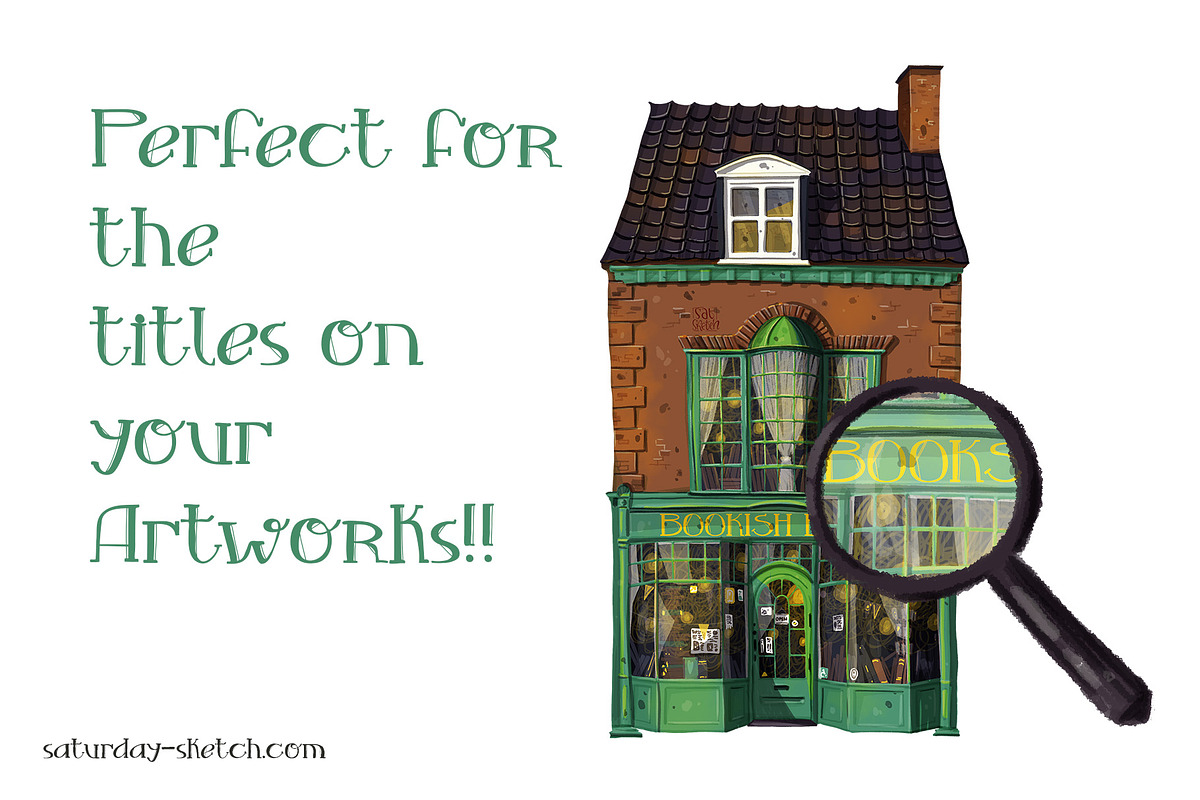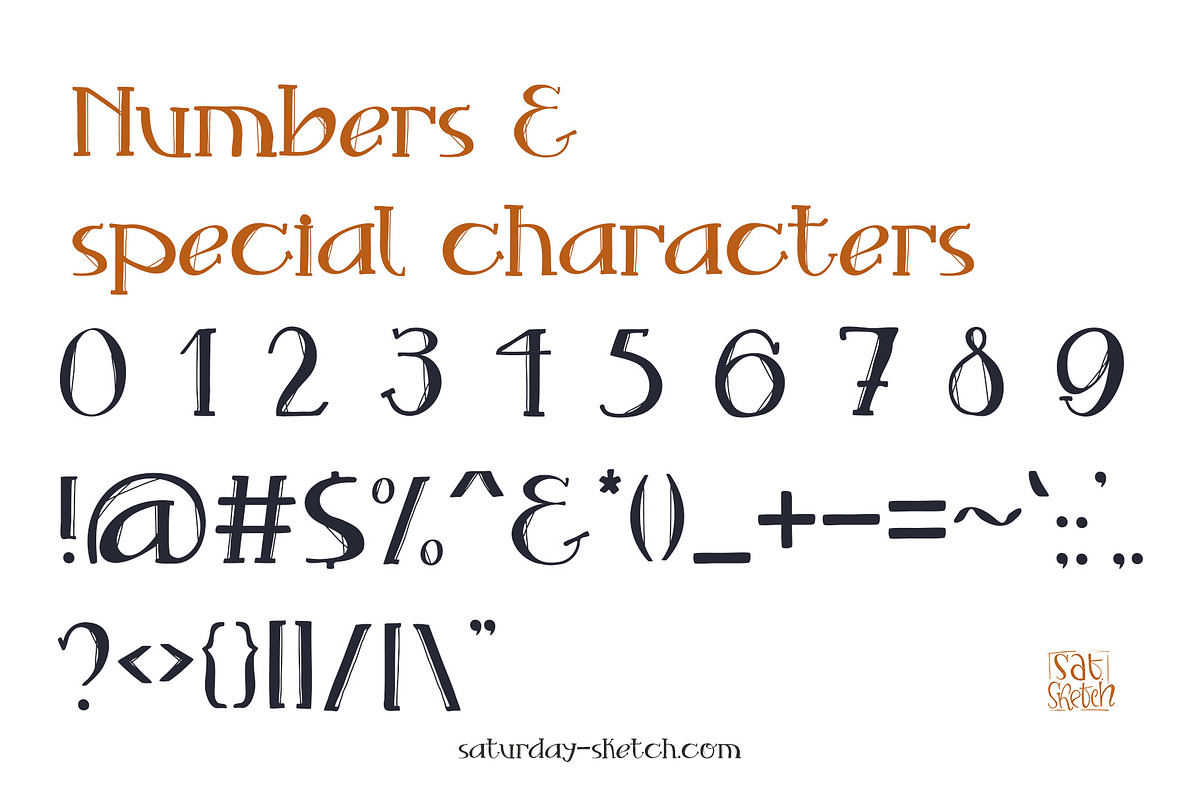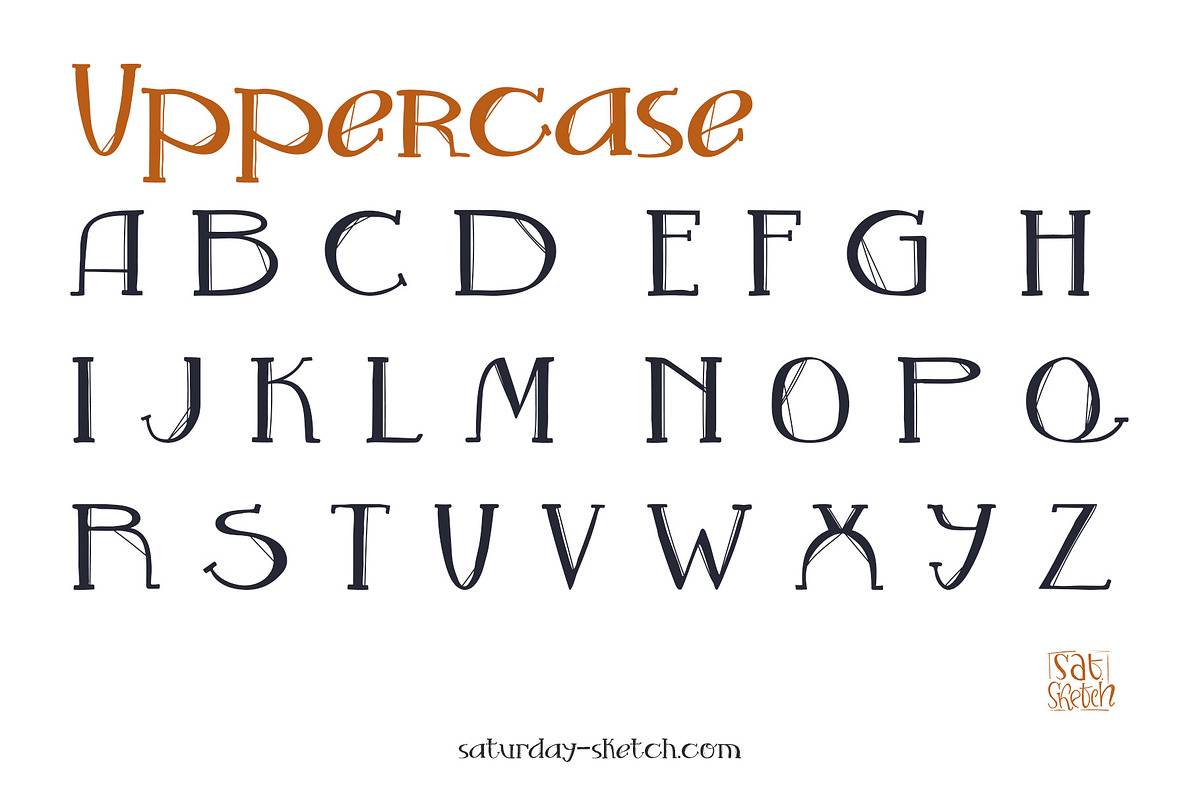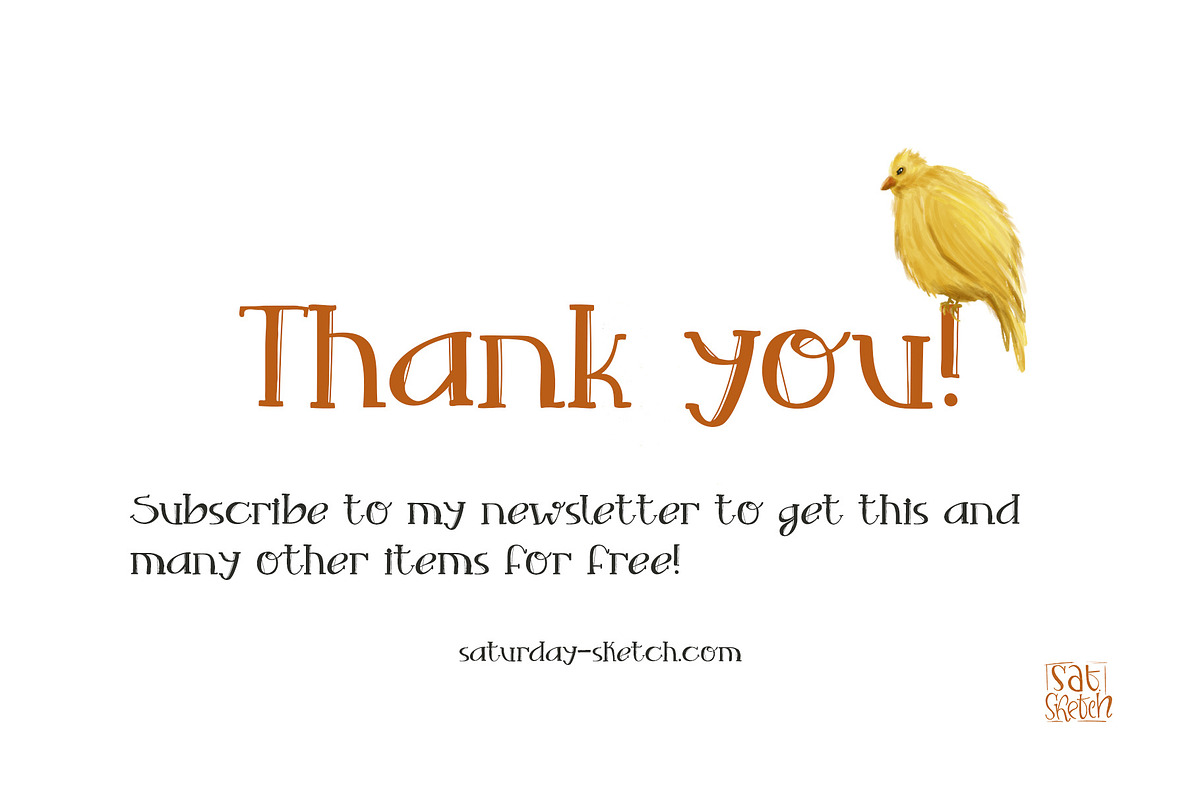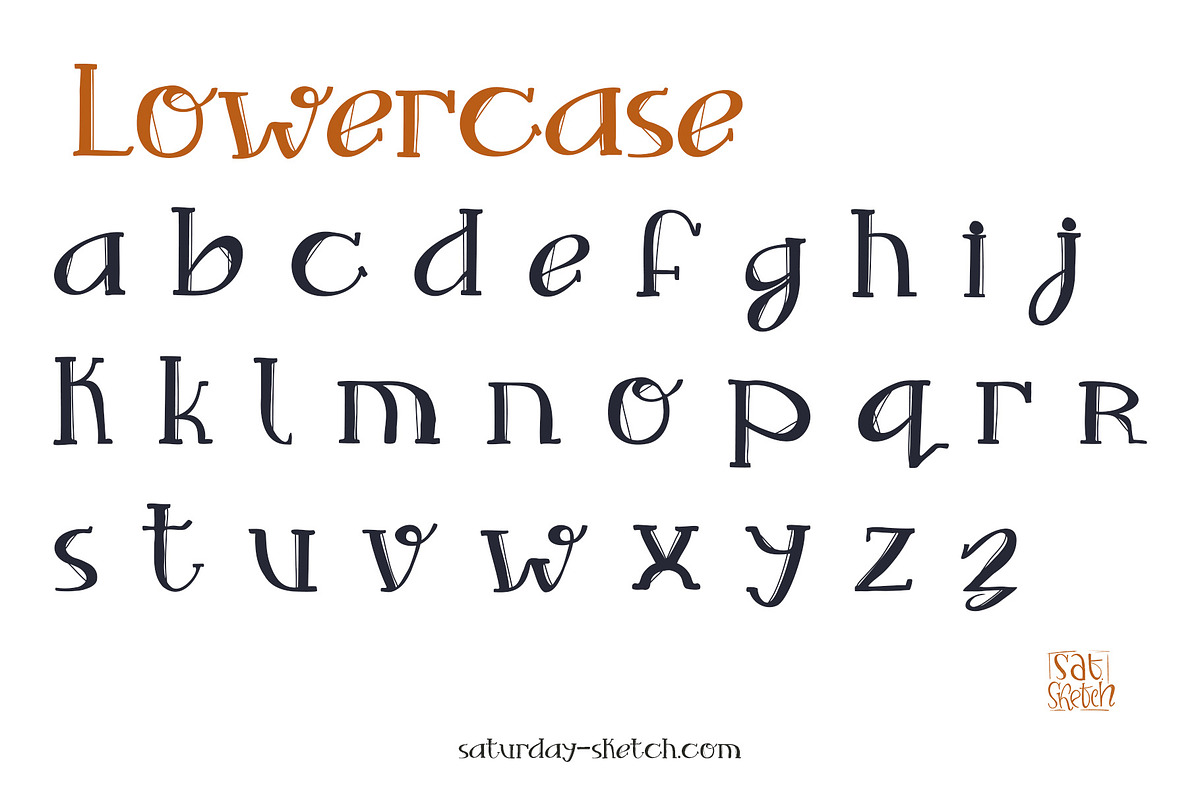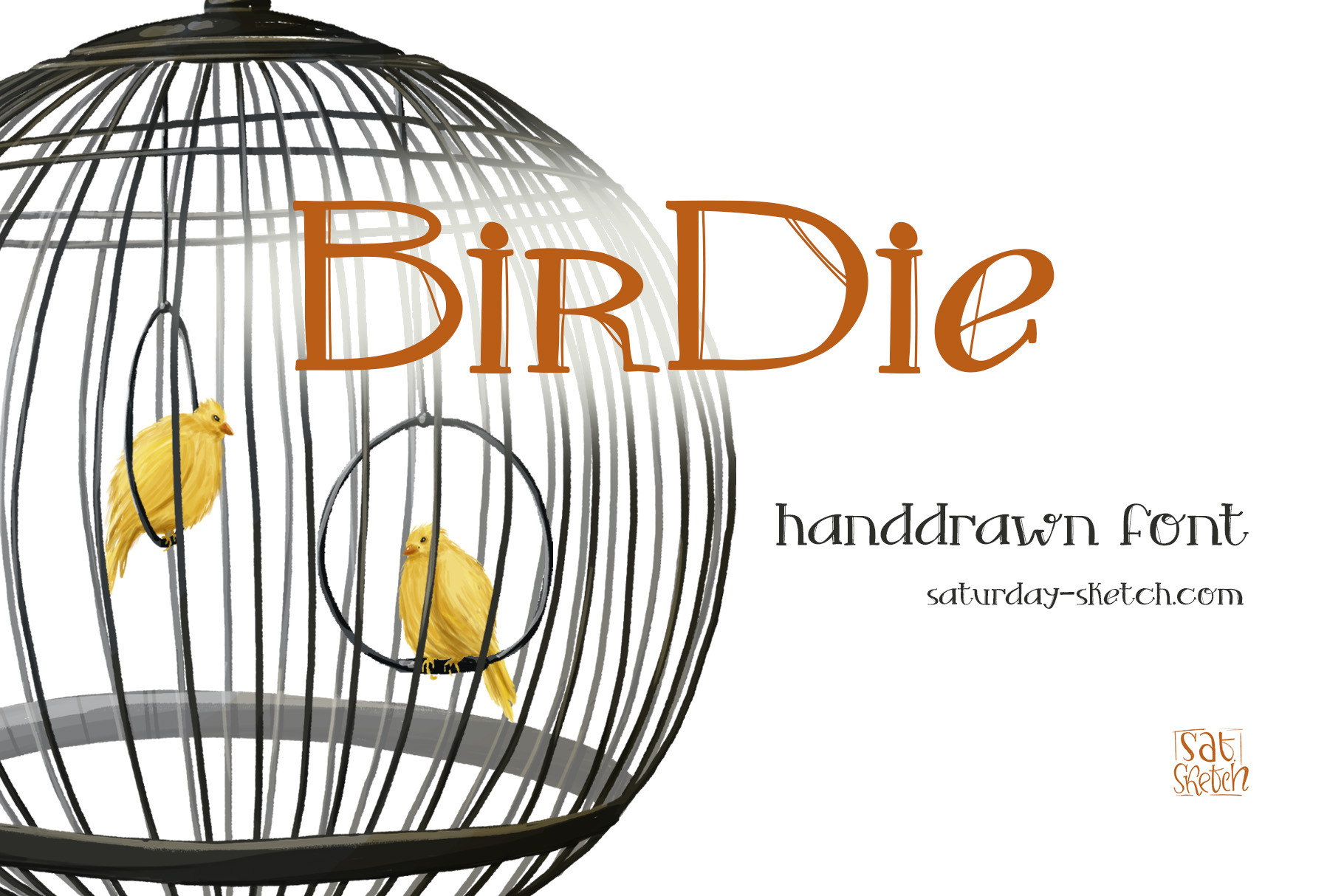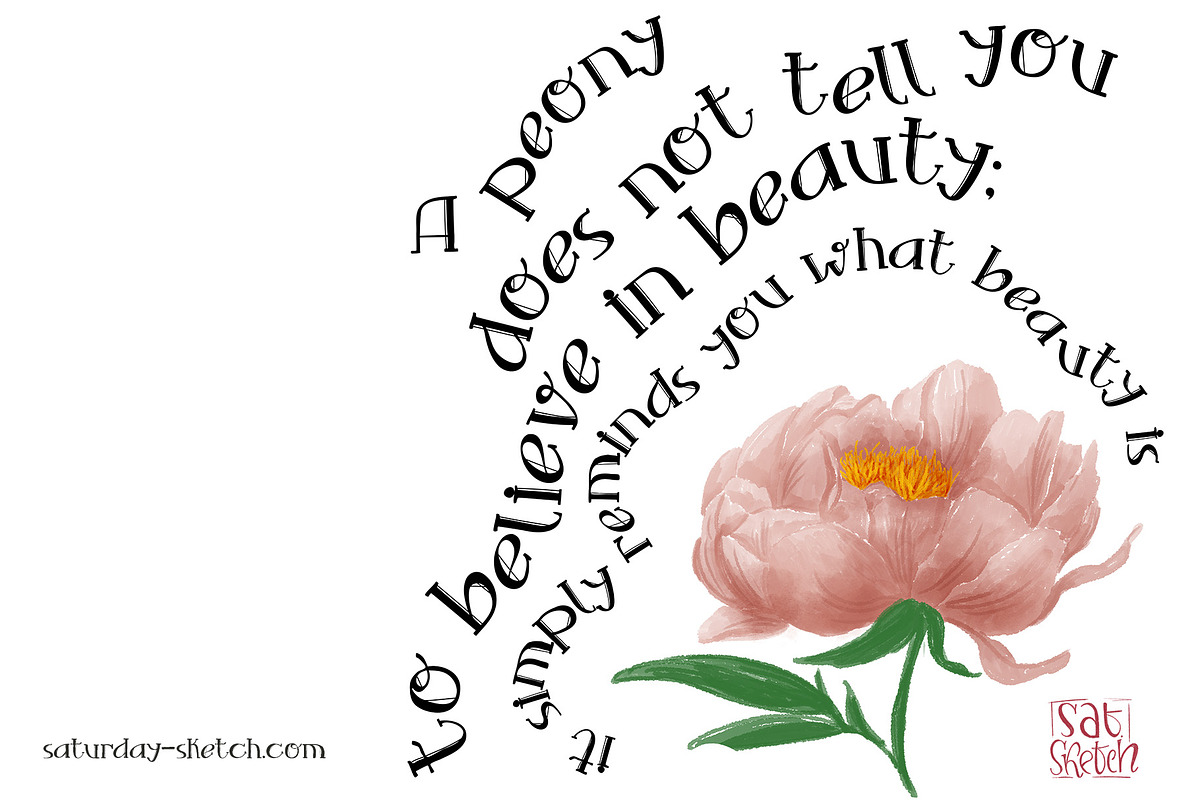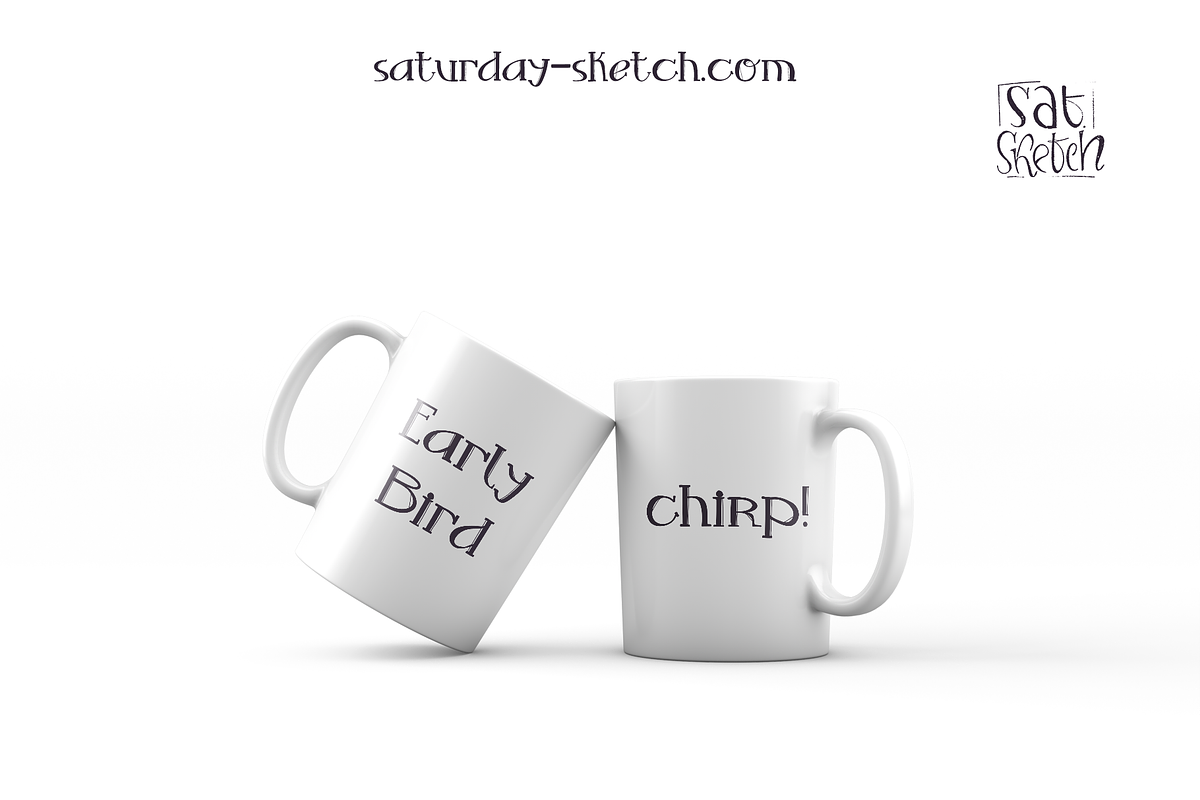
Birdie - handdrawn display font
"Birdie" is a charming hand-drawn OTF font that brings a whimsical, personal touch to any design project. With its unique, handcrafted appearance, Birdie stands out in a sea of digital uniformity, making it perfect for invitations, greeting cards, branding, and more. Its playful and friendly vibe adds warmth and character, ensuring your text resonates with a delightful, human element. Investing in Birdie means embracing creativity and originality, allowing your projects to shine with authenticity and flair. Whether you're a designer seeking a distinctive typeface or simply want to add a bit of fun to your work, Birdie is an excellent choice.